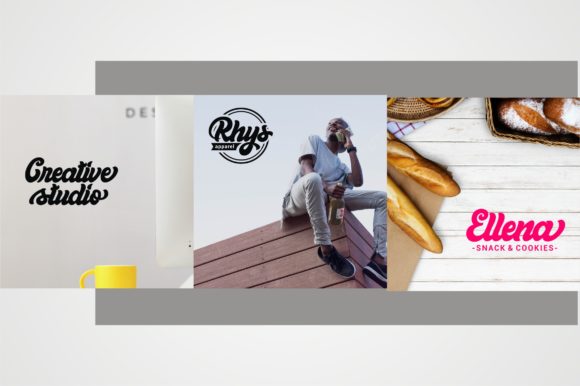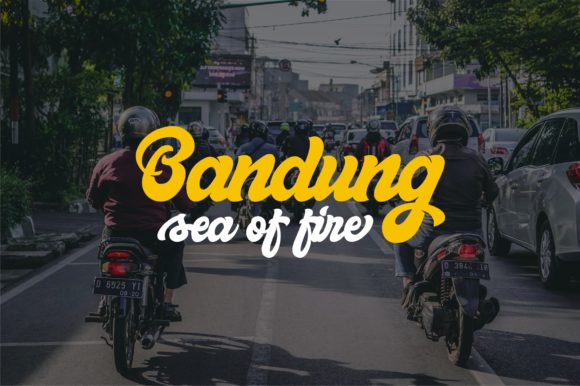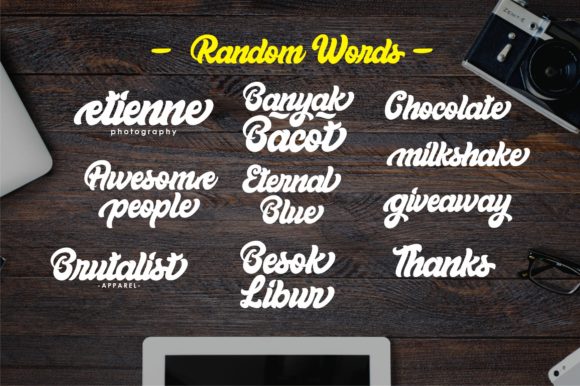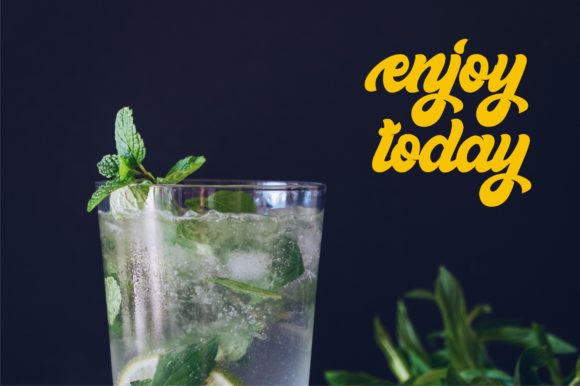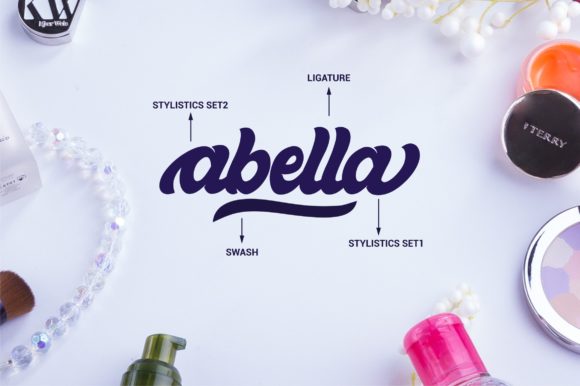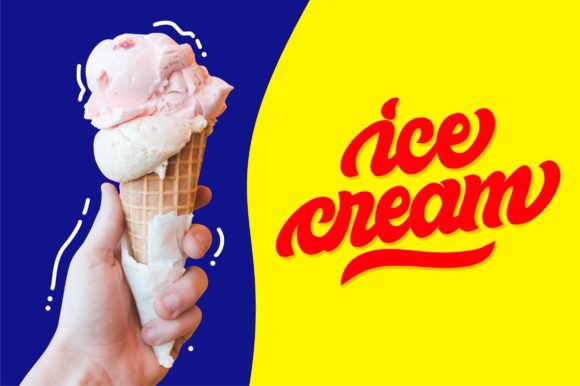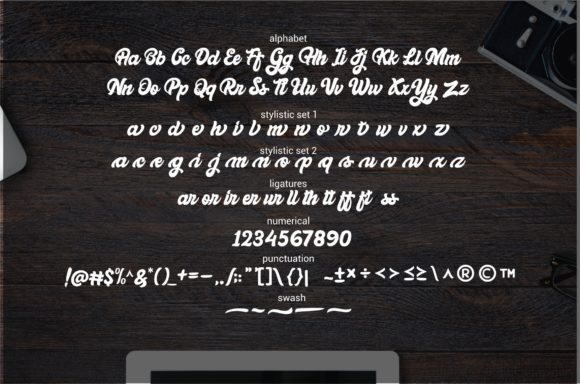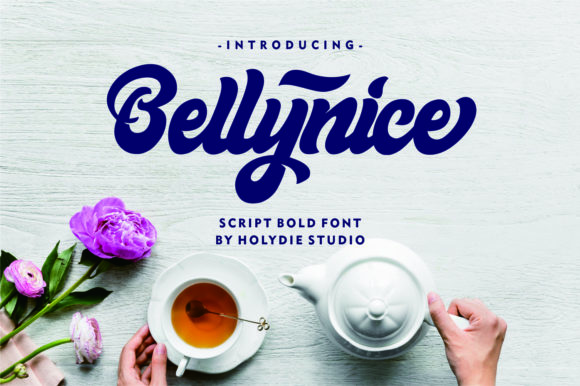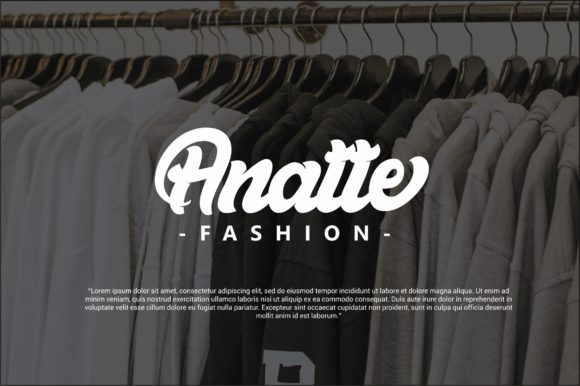
Bellynice
Looking for a font that exudes drama and flair? Look no further than bold script fonts like Bellynice! With its striking appearance inspired by jelly fat, this font is sure to grab attention and make your designs stand out from the crowd.
Perfect for making a statement in branding, logos, product packaging, posters, menus, advertising, and more, Bellynice's unique blend of elegance and boldness makes it an excellent choice for any project where you want to convey confidence and sophistication. Its script style adds a touch of whimsy and personality, making it particularly well-suited for creative industries like fashion, entertainment, or design.
Whether you're looking to add some visual flair to your typography, create eye-catching headlines, or give your brand a distinctive voice, Bellynice's bold strokes and fluid curves are sure to impress. Its versatility also makes it an excellent choice for packaging, menus, and other materials where you want to convey a sense of luxury and exclusivity.
So if you're looking for a font that will add some excitement and drama to your designs, look no further than Bellynice! With its bold script style and jelly fat-inspired aesthetic, this font is sure to make your designs pop.